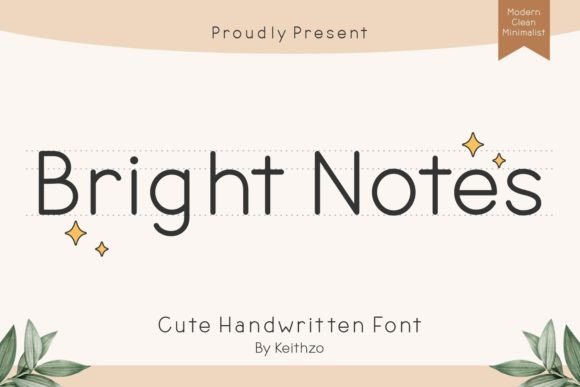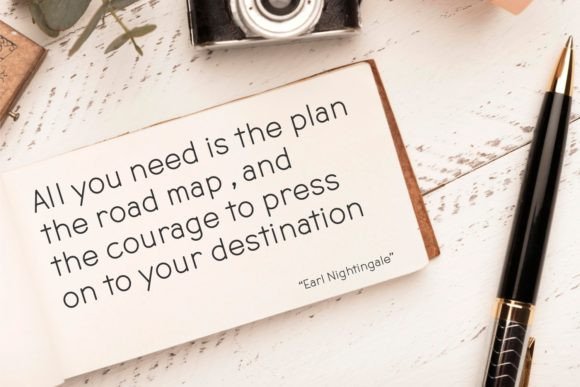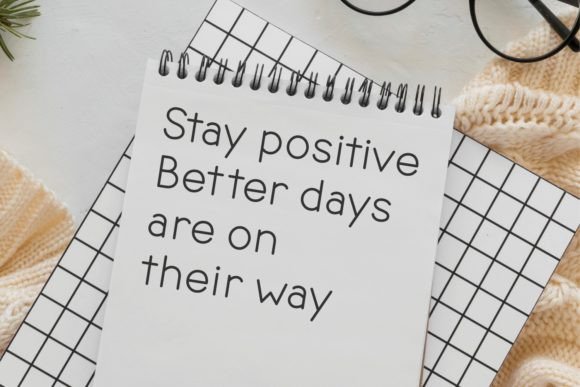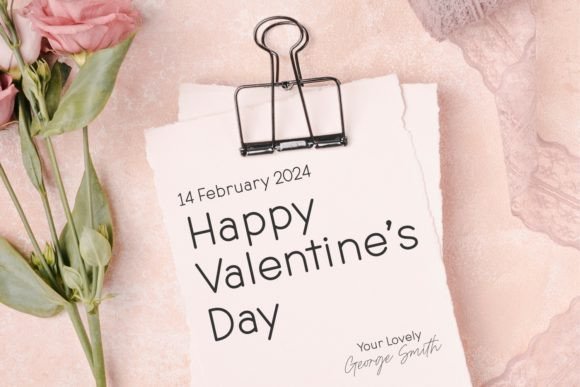
Bright Notes Font
About the Bright Notes Font
Meet Bright Notes Font, a stunning font that brings a touch of elegance and professionalism to any design. Bright Notes it’s fun, it’s cute, it’s smooth. A font with lots of combination possibilities, it makes a fun display, good to make logotypes, stickers, fun kid’s signs, and other lettering projects.
Bright Notes is ideally suited for headlines, logos, short-form text in packaging design, and children’s projects, where its playful energy shines. It works exceptionally well for branding initiatives targeting young audiences or products with a lighthearted, approachable feel. Avoid using it for large blocks of body text or UI elements; its playful nature can hinder readability in extended use.
Consider pairing Bright Notes with a clean sans-serif like Open Sans for a balanced contrast, or a more geometric sans-serif for a modern feel. For a slightly more sophisticated look, a thin, elegant serif like Lora can provide a refined counterpoint to its informal charm. Avoid pairing it with overly ornate scripts, which might create visual clutter.
Its core personality is undeniably friendly and playful, making it perfect for brands emphasizing youthfulness, fun, and approachability.
Bright Notes Font Example